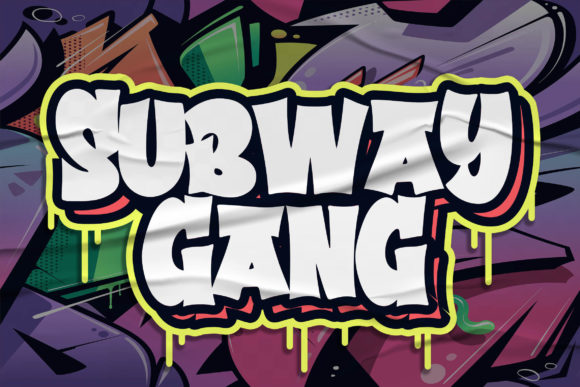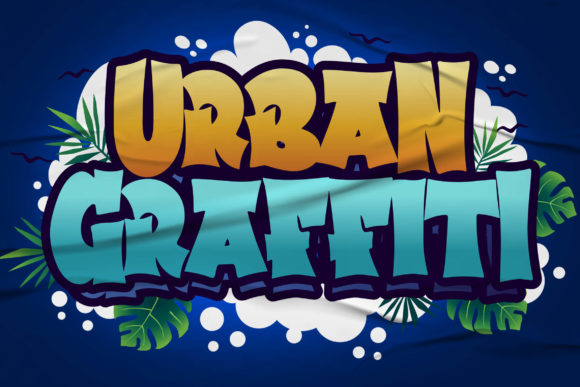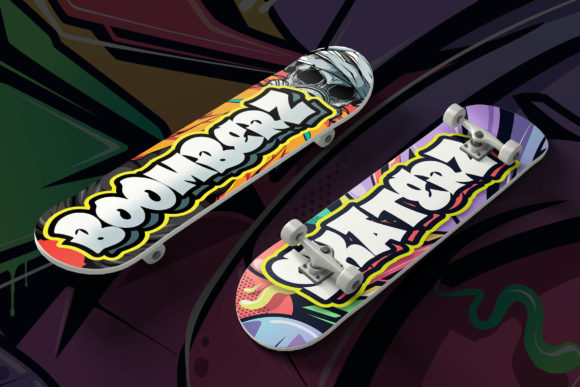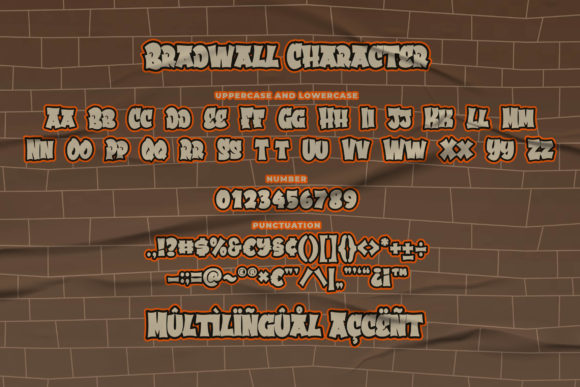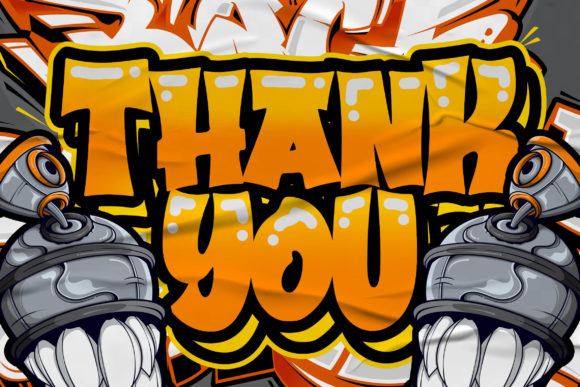
The Ultimate Guide to Bradwall Font: A Cool Graffiti-Styled Display Font
Have you ever been in the middle of a design project, and suddenly, you’re stuck on finding the perfect font? I recall a recent experience where I was working on a children’s game design, and I needed a font that would bring a playful, cartoonish vibe to the game. After scouring through numerous font libraries, I stumbled upon Bradwall Font, and it instantly became my go-to choice. In this article, I’ll share my experience with Bradwall Font, its features, and how to make the most of it in your designs.
An Honest Review of Bradwall Font
Bradwall Font has quickly become a favorite in my font collection, and here’s why:
- ✨ Unique Graffiti Style: Bradwall Font boasts a cool, graffiti-styled display that adds a lovely touch to any design.
- ✅ Versatility: It’s perfect for cartoon-related designs, children’s games, or any creation that requires a playful and youthful feel.
- ✅ Easy to Read: Despite its graffiti style, the font remains surprisingly legible, making it suitable for both headings and short paragraphs.
However, no font is perfect, and Bradwall Font has a few minor quirks:
- 🤔 Limited Formality: Due to its playful nature, Bradwall Font might not be the best choice for formal or professional designs.
- ⚠️ Glyph Limitations: While it has a decent range of glyphs, it might not cover every special character or language script you need.
The Backstory Behind Bradwall Font
Bradwall Font was created with the intention of capturing the essence of urban graffiti while making it accessible and fun for designers. The designer aimed to create a font that could bring a smile to users’ faces while still being versatile enough for various projects. The result is a font that’s not only visually appealing but also highly functional.
Q: What type of projects is Bradwall Font best suited for?
Bradwall Font is ideal for projects that require a playful and youthful touch, such as children’s games, cartoon-related designs, and any creative endeavor looking for a graffiti-styled display font.
Q: Is Bradwall Font suitable for body text?
While Bradwall Font is primarily designed as a display font, it’s surprisingly legible. However, for long paragraphs of body text, a more traditional font might be more suitable.
| Font Name | Bradwall Font |
| Author | Blankids Studio |